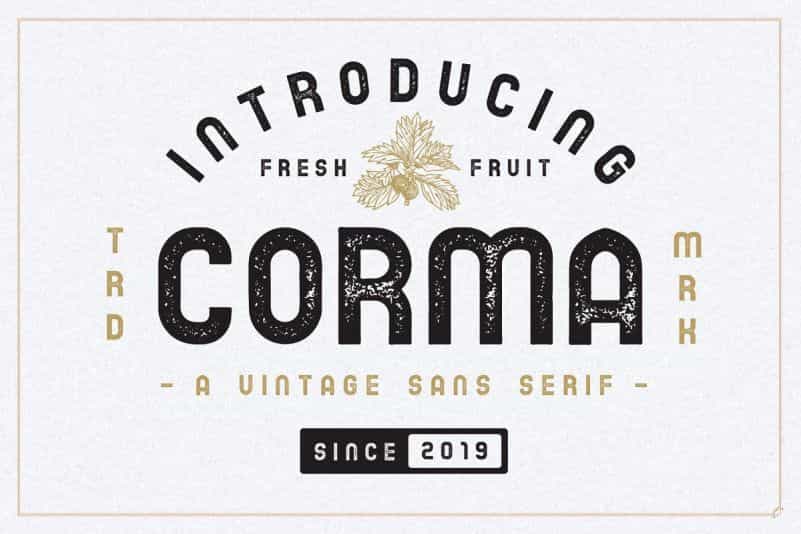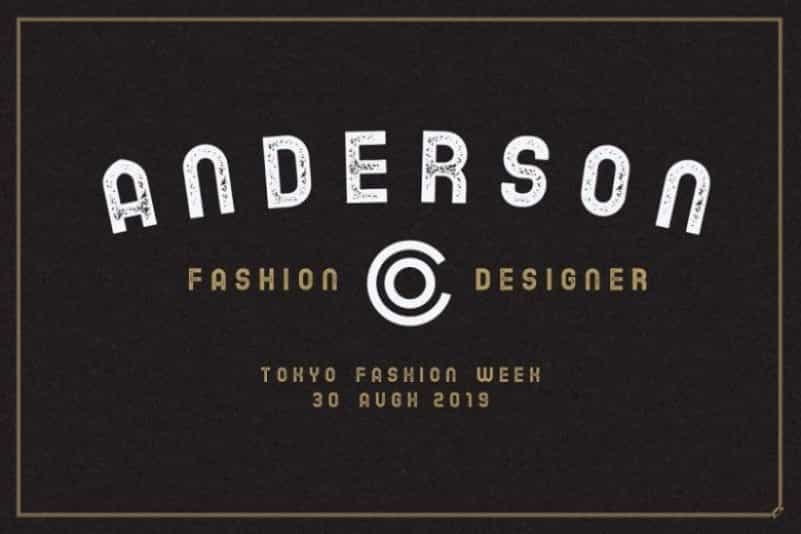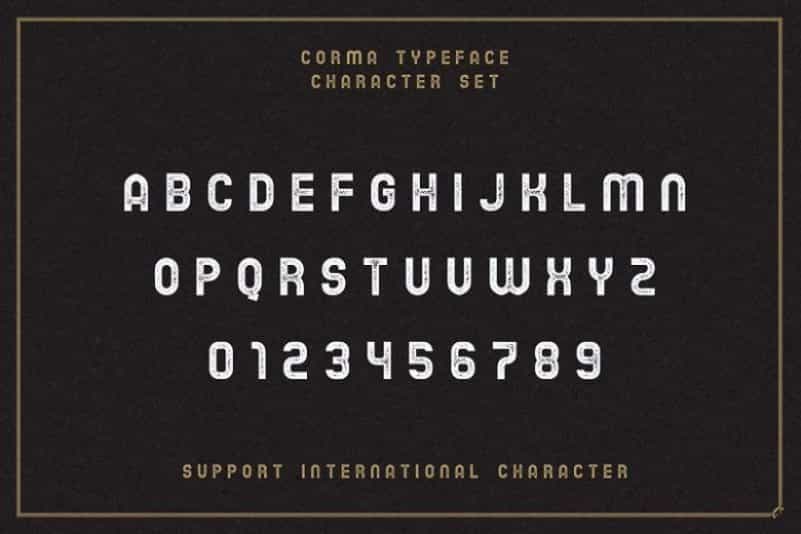
Corma is a vintage display family consisting of Regular and Italic versions as well as Textured versions. It is great for logos, name cards, magazine layouts, invitations, headers or even large-scale artwork. Corma contains 4 OTF & TTF files in the Zip folder.